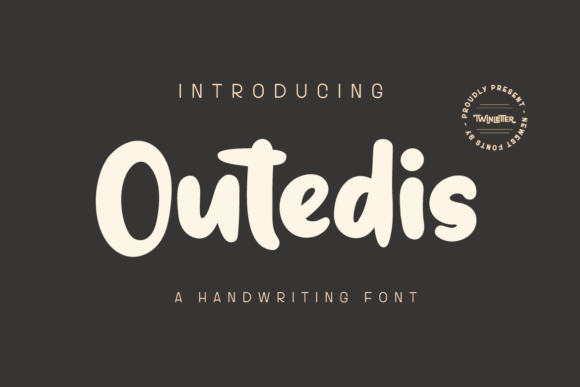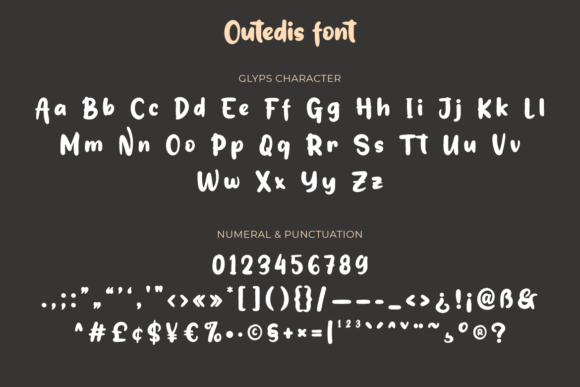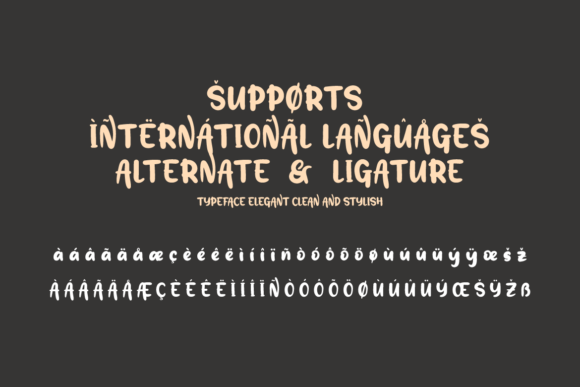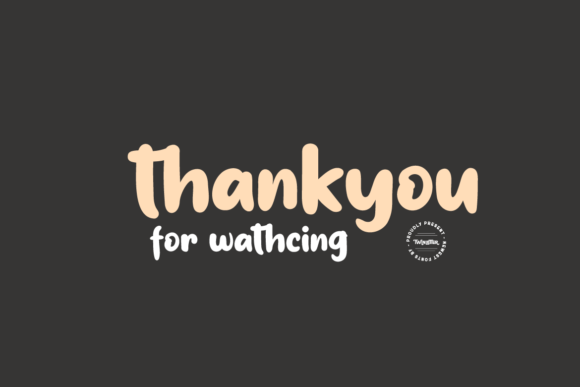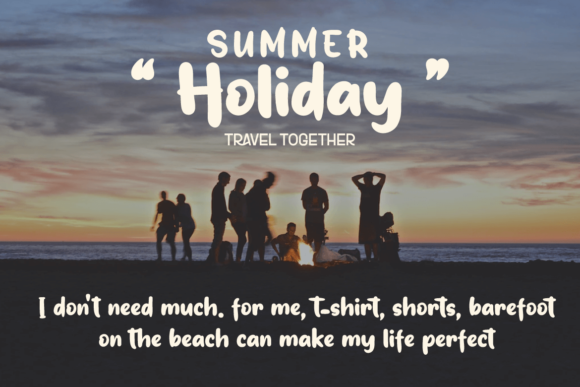
About Outedis Font
Introducing “Outedis,” a trendy, thick lettered, and charming handwritten font that will add a touch of style and personality to your designs. Whether you’re working on branding, packaging, social media graphics, or any other creative project, Outedis has the potential to take your design to the next level.
With its bold and thick letterforms, Outedis stands out and commands attention. The strong strokes and distinctive style make it a versatile font that can be used for a variety of purposes. Whether you’re creating a logo, a headline, or a poster, this font will make a bold statement.
The handwritten nature of Outedis adds an authentic and personal feel to your designs. The imperfect strokes and subtle variations give the font a charming and organic quality. It feels like it was created with care and attention to detail, adding a human touch to your artwork.
Outedis is designed to be an asset in your font library, offering versatility and the potential to enhance any creation. Its thick letterforms make it legible even at smaller sizes, ensuring that your message is easily readable. Whether you’re using it for print or digital projects, Outedis will make an impact.
The charm of Outedis lies not only in its thickness but also in its unique style. The playful curves and unconventional letter shapes give it a distinct and memorable look. It breaks away from the traditional script fonts and adds a modern twist to your designs.
With Outedis in your fonts’ library, you have the freedom to explore various design possibilities. Experiment with different layouts, color schemes, and combinations to create eye-catching and engaging compositions. This font provides a solid foundation for your creativity to flourish.
In summary, Outedis is a trendy, thick lettered, and charming handwritten font that will elevate your designs with its unique style and personality. It is versatile, legible, and perfect for various projects, from branding to social media graphics. Embrace the boldness and charm of Outedis and let your creativity shine.